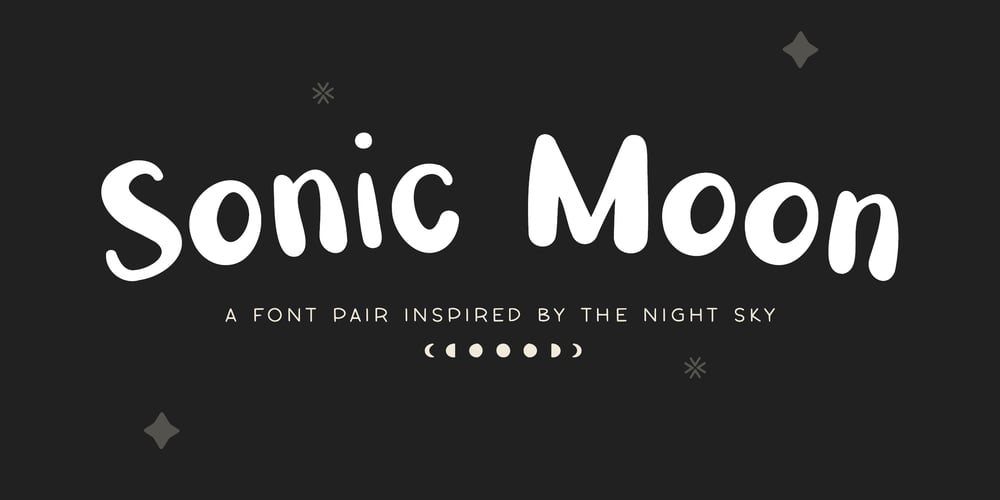
Mix Sonic Font Family was designed by Mikko Sumulong and published by Mix Fonts. Mix Sonic contains 2 styles and family package options. MIX SONIC is a font pair inspired by the night sky. You get a round, bouncy and plump decorative san serif in MIX SONIC MOON and an all-uppercase and moon and stars dingbat hybrid in MIX SONIC STAR. The shapes of these glyphs capture the various phases of the moon, and how it lights up eerily lights up the night sky at each phase. MIX SONIC MOON and MIX SONIC STAR are great additions to your font collection. Make it a go-to font for all your projects of the mystic, astrology, magic, zodiac, elemental, witchcraft or divine variety. Use together, or separately, both font sets are sure to delight! MIX SONIC MOON comes with the following glyphs: ABCDEFGHIJKLMNOPQRSTUVWXYZ abcdefghijklmnopqrstuvwxyz 0123456789 !@#$%^&*()`~♥♥✿•· ÷×+−±≈=≠≥≤[]<>:;’”,.|/?{}“”‘’-–—_… ©®™‹›«»°¹²³ªº¡¿₱¢€£¥½¼¾¶§№† ÁÀÂÄÃÅĂĀĄÆĆĈČÇÐĐÉÈÊËĖĒĘĜĤIÍÌÎÏĪĮĴŁŃÑŇÓÒÔÖÕŌŐ ØŒŔŘŚŜŠŞȘŤȚÚÙÛÜŮŰŬŪŲẂẀŴÝŶŸŹẐŽŻÞẞ áàâäãåăāąæćĉčçðđéèêëėēęĝĥıíìîïīįĵłńñňóòôöõōő øœŕřśŝšşșťțúùûüůűŭūųẃẁŵýŷÿźẑžżþß MIX SONIC STAR comes with the following glyphs: ABCDEFGHIJKLMNOPQRSTUVWXYZ abcdefghijklmnopqrstu-vwxyz 0123456789 !@#$%^&*()`~+= []<>:;’”,.|/?{}“”‘’-_‹›₱¢€£¥ Fellow witches, enjoy!